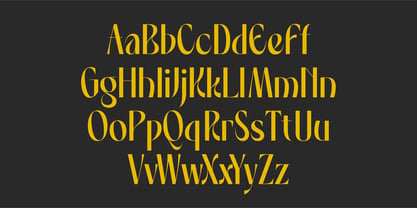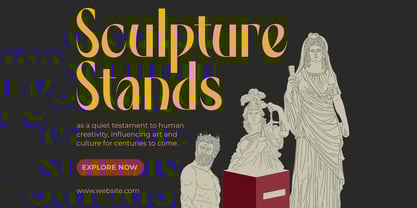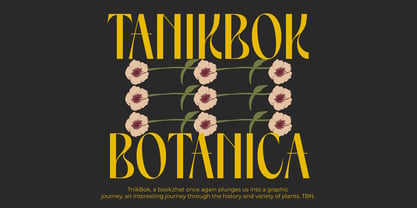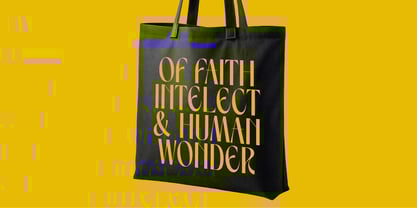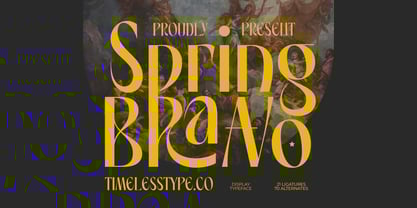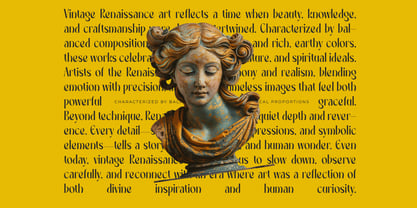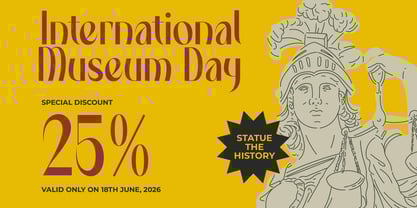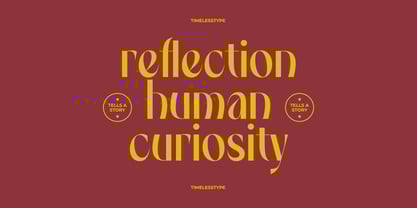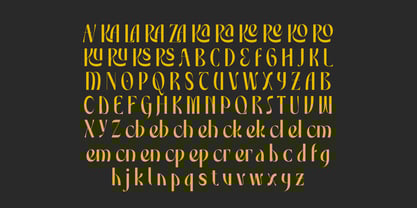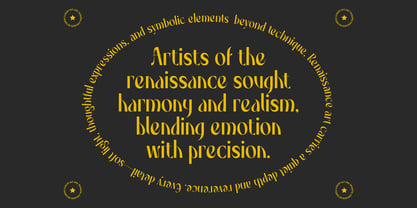
Spring Braavo
by Timelesstype Studio
The Spring Braavo Font Family was designed by Heru Utama Putra and published by Timelesstype Studio. Spring Braavo contains 2 styles and family package options.
Spring Braavo is a high-contrast decorative display typeface crafted for bold, theatrical visual statements. With its elongated vertical forms, artistic curves, and dramatic serif accents, this font combines vintage elegance with modern editorial flair. Featuring 21 refined ligatures and 70 stylistic alternates, Spring Bravo offers endless composition possibilities for luxury branding, magazine headlines, poster design, packaging, and expressive typography. Its sculpted shapes and ornamental details create a sophisticated yet contemporary presence—perfect for designers aiming to stand out with unmistakable style.